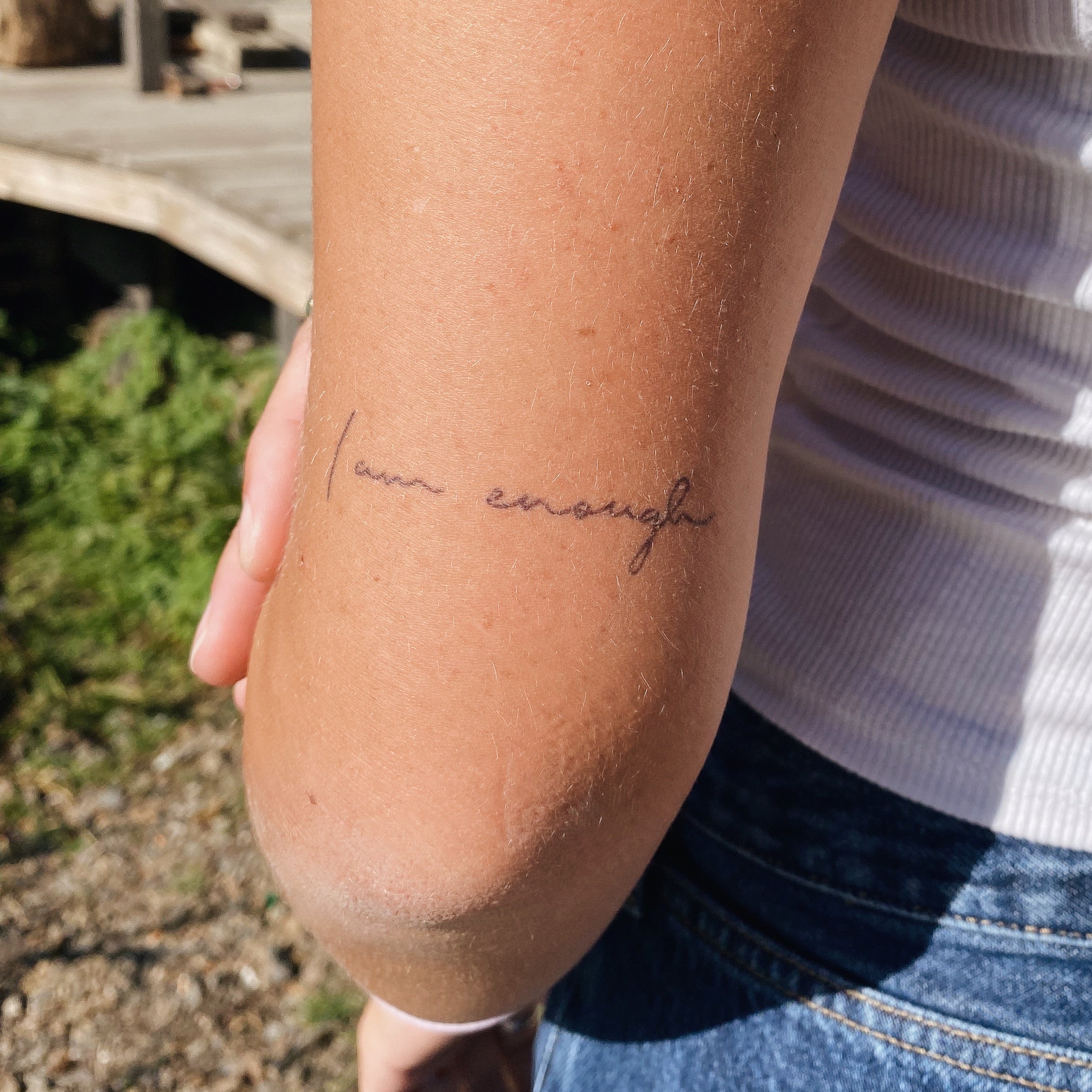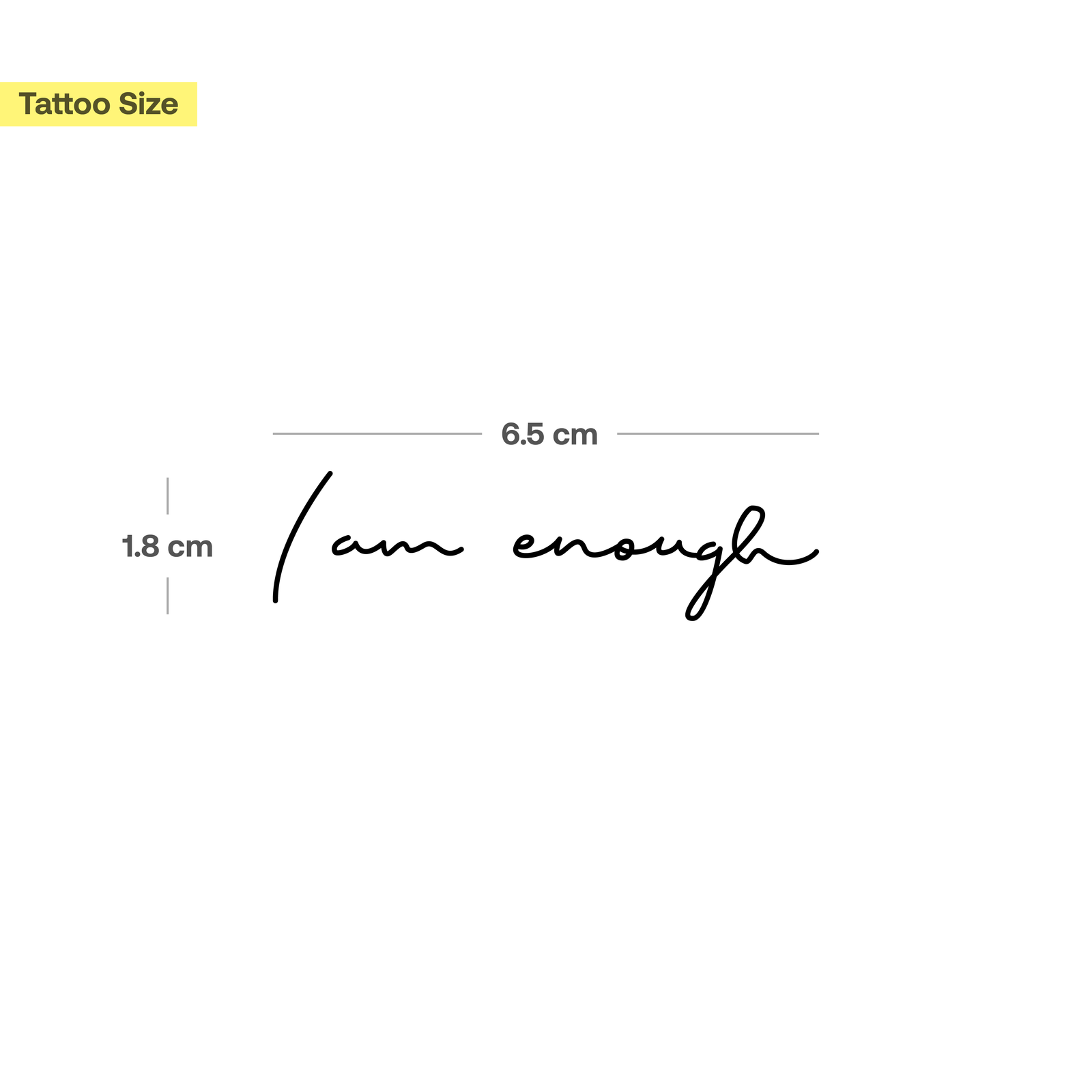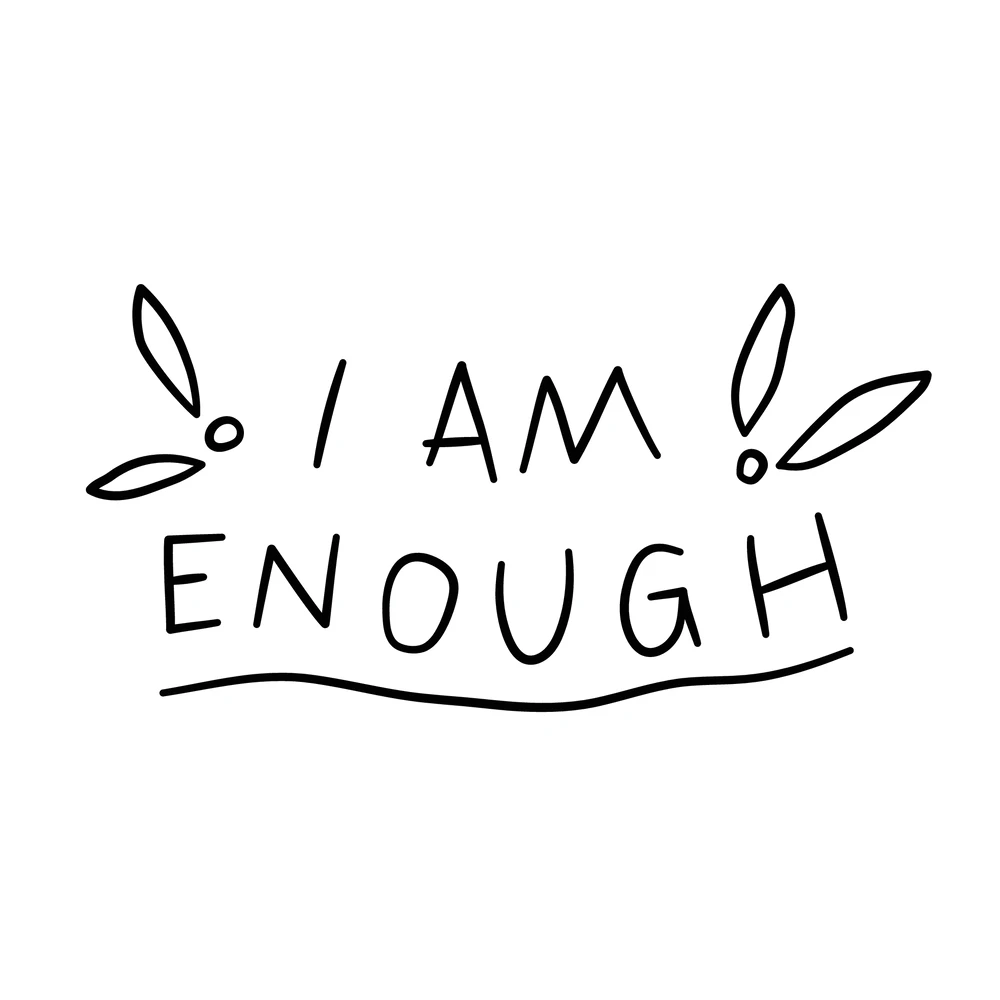
23 Bold I Am Enough Tattoo Font: Everyday Strength
The i am enough tattoo font blends a gentle script with bold confidence, making it a popular choice for those seeking subtle affirmation. It’s a quiet reminder that self‑love is no luxury, but a daily practice.
Whether inked on the wrist, collarbone, or forearm, this font inspires calm strength. By carrying the phrase close to your heart, the design becomes a personal mantra that bolsters resilience and inner peace.
I Am Enough Tattoo Font – Soft & Powerful
Looking for a bold yet gentle tattoo font that speaks to your soul? The I Am Enough (Script) Temporary Tattoo design blends elegance with strength, making it perfect for those who want to wear their confidence like a statement. With smooth, flowing script lines, this font captures the essence of self-love and inner peace—ideal for a meaningful personal mark that grows with you.
This script font carries the quiet strength of “I am enough” in a natural, handwritten style—perfect for those who want confidence without noise.
Simple, elegant, and deeply personal—this i am enough tattoo font feels like a whisper of self-acceptance.
I Am Enough Tattoo Font - Soft & Powerful
I Am Enough Tattoo Font Ideas
Looking for a bold, heartfelt tattoo design? The “I Am Enough” message in striking font styles brings strength and self-love to skin art. Whether you go for minimalist elegance or bold, modern typography, this phrase resonates deeply. It’s perfect for those who want to wear their confidence like a tattoo. Try pairing it with a subtle heart symbol—like the I Am Enough Heart Temporary Tattoo—for a touch of warmth without commitment.
This powerful phrase in unique tattoo fonts speaks to self-worth and inner peace. It’s not just a slogan—it’s a daily reminder of your value.
Choose a bold font to make your message stand out. The right style can turn a simple phrase into a personal statement.
I Am Enough Tattoo Font Ideas
I Am Enough – Bold & Beautiful Tattoo Font
Embrace confidence with the powerful “I am enough” message in a striking tattoo font that blends strength and simplicity. This design captures the essence of self-worth with clean lines and a timeless feel. Perfect for those who want a meaningful, personal symbol of inner peace and self-acceptance. feminist i am enough tattoo is a great inspiration for those looking to express their journey through body art.
The “I am enough” message in typewriter font adds a raw, authentic touch—like a personal reminder carved into skin. It’s simple, bold, and speaks directly to the heart. My reminder (in typewriter font) “i am enough” Thanks B … reminds us that self-love starts with saying it out loud.
Choose a strong, readable font that stands out without overpowering. This tattoo font is both modern and grounded, making it ideal for everyday wear or as a statement piece. Whether you’re getting it on the forearm or inner wrist, it carries quiet strength. feminist i am enough tattoo showcases how powerful this phrase can be when styled with intention.
I Am Enough - Bold & Beautiful Tattoo Font
I Am Enough – Bold Tattoo Font Style
Feeling confident? Try the ‘I Am Enough’ tattoo font that blends strength with simplicity. This modern design captures the spirit of self-love and empowerment, perfect for those who want a statement that speaks directly to their inner peace. Inspired by the I Am Enough Heart Temporary Tattoo, it’s a fresh take on timeless affirmations—ideal for a meaningful body art piece that stands out without being flashy.
This tattoo font is clean, strong, and deeply personal—perfect for anyone who believes they’re enough just as they are.
Simple, powerful, and full of meaning—this font turns confidence into visible art.
I Am Enough - Bold Tattoo Font Style
I Am Enough – Bold Font Tattoo Design
When you go for an “I am enough” lettering tattoo on the inner forearm, you’re choosing strength, self-love, and quiet confidence. The right font—clean, modern, and powerful—makes the message stand out without overpowering the skin. This isn’t just ink; it’s a daily reminder of your worth, crafted with intentional design and personal meaning. Whether you go for a minimalist serif or a bold sans-serif, the “i am enough tattoo font” speaks volumes about who you are.
Simple, strong, and deeply personal—this tattoo carries the message of self-acceptance with grace.
The “i am enough tattoo font” works beautifully on the inner forearm, blending subtlety with impact.
I Am Enough - Bold Font Tattoo Design
I Am Enough Tattoo Font – Simple & Powerful
Feeling confident? This elegant ‘I am enough’ tattoo font captures strength and self-love in a clean, modern design. Perfect for those who want a bold statement without overcomplicating it. Whether you’re getting ink or just exploring self-expression, this font speaks directly to your worth. A subtle yet impactful way to carry your truth every day. Try it with a temporary tattoo ‘I am enough’ (2 pieces) for a quick, wearable reminder of your inner peace.